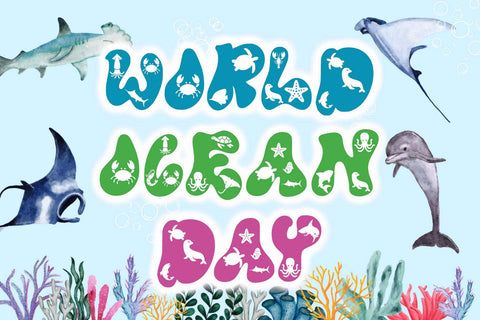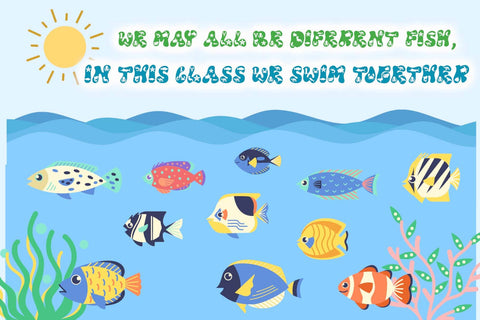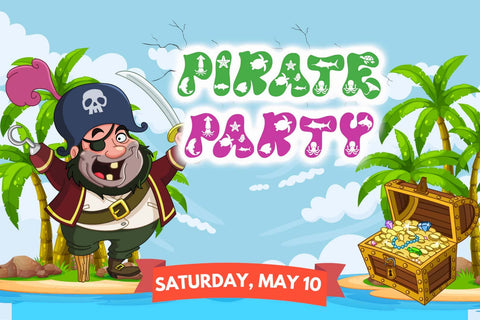
Ocean Animal
"Ocean Animal" is a unique display font with sea animal decorations on each letter. Equipped with uppercase letters, lowercase letters, numerals, punctuations and multilingual support. Very suitable for book titles, film titles, comics, posters, banners, logos, branding, stickers and others.